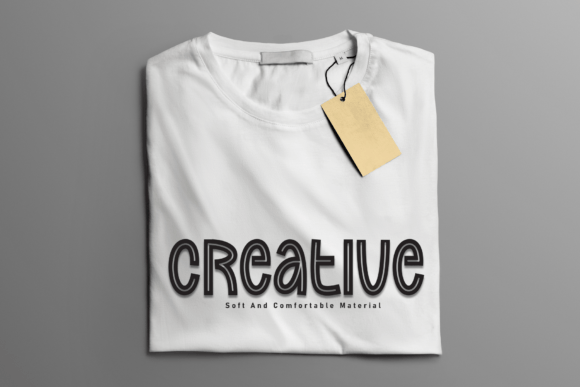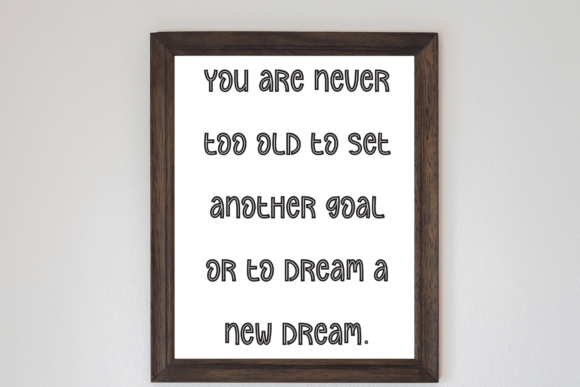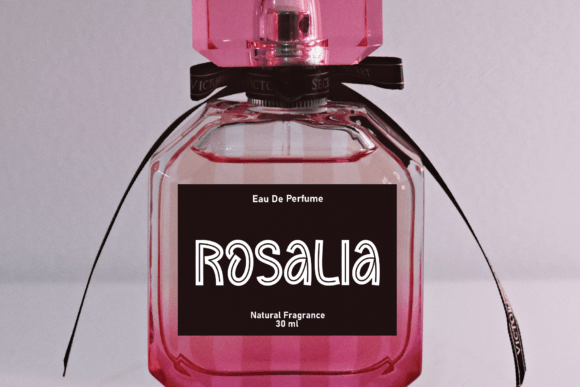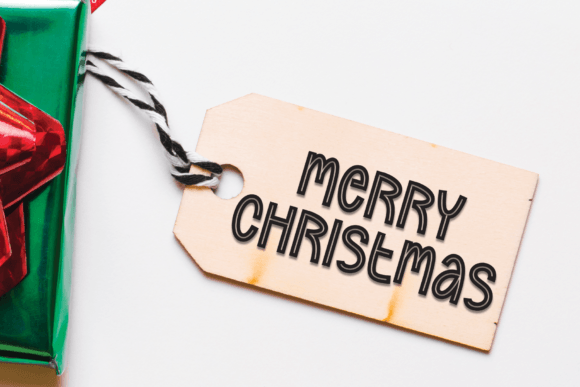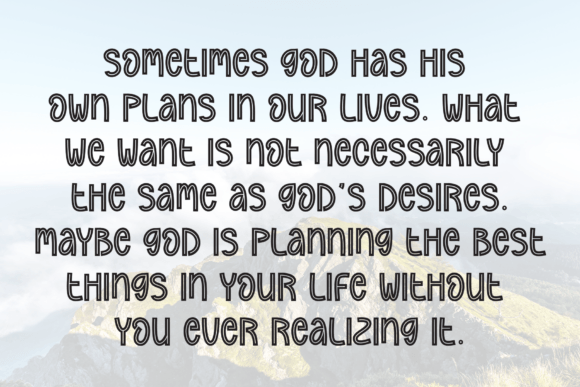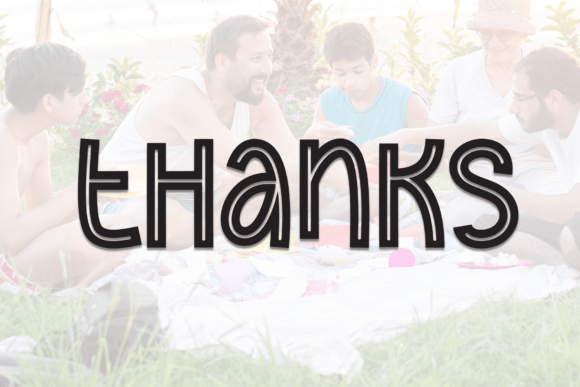
Introducing Family Gathering Font: The Perfect Addition to Your Design Collection
Are you tired of using the same old fonts in your designs? Look no further! Family Gathering Font is a sweet and friendly display font that’s sure to elevate your creative projects. Its natural and unique style makes it incredibly fitting to a large pool of designs, and the only limit is your imagination!
What Makes Family Gathering Font So Special?
Family Gathering Font is a one-of-a-kind display font that’s perfect for designers and crafters who want to add a personal touch to their work. Its sweet and friendly style is sure to capture the hearts of your audience, making it ideal for a wide range of projects, from wedding invitations and party decorations to branding and advertising materials.
One of the standout features of Family Gathering Font is its unique and natural style. Unlike other fonts that can look stiff and formal, Family Gathering Font has a warm and inviting feel that’s sure to make your designs stand out. Whether you’re creating a rustic-themed wedding invitation or a playful children’s party decoration, this font is sure to add a touch of personality to your work.
Endless Design Possibilities with Family Gathering Font
The versatility of Family Gathering Font is one of its greatest strengths. With this font, the only limit is your imagination! You can use it to create a wide range of designs, from:
- Wedding invitations and party decorations
- Branding and advertising materials
- Signs and banners
Whether you’re a professional designer or a crafter, Family Gathering Font is sure to inspire you to create something truly special. Its unique style and versatility make it the perfect addition to your design collection.
Why Choose Family Gathering Font?
So why choose Family Gathering Font over other fonts on the market? Here are just a few reasons:
- Unique and eye-catching style: Family Gathering Font has a one-of-a-kind style that’s sure to capture the attention of your audience.
- Versatility: This font can be used for a wide range of projects, from wedding invitations to branding materials.
- Easy to read: Despite its unique style, Family Gathering Font is easy to read, making it perfect for both digital and print designs.
- High-quality: This font is designed to high standards, ensuring that it will look great in any design.
Tips for Using Family Gathering Font
To get the most out of Family Gathering Font, here are a few tips:
- Use it sparingly: While Family Gathering Font is beautiful, it can be overwhelming if used too much. Use it sparingly to add a touch of personality to your design.
- Experiment with colors: Family Gathering Font looks great in a range of colors, so don’t be afraid to experiment and find the perfect shade for your design.
- Pair it with other fonts: Family Gathering Font pairs well with other fonts, so consider using it in combination with a sans-serif font for added contrast.